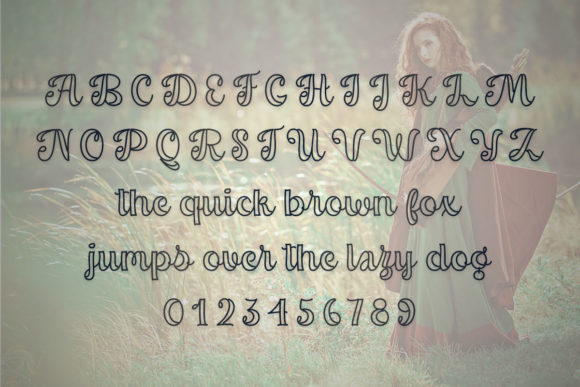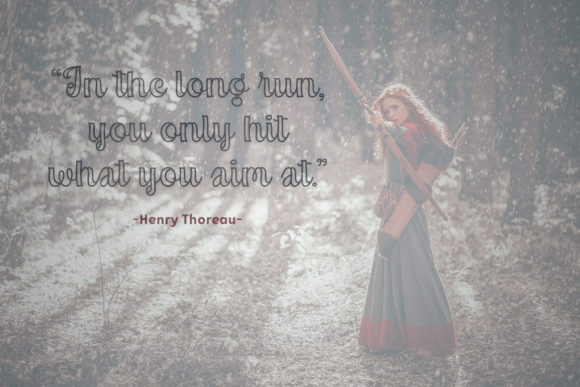
Introduction to Magnilda Font
Magnilda is a delicate and elegant script font, with a unique feel and a stunning impact.
It will add a luxury spark to any design project that you wish to create .
Key Features of Magnilda Font